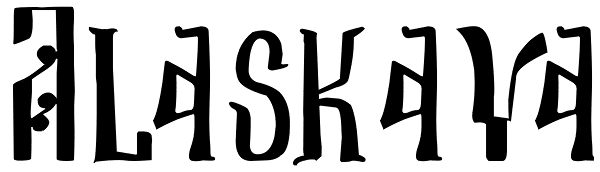
Alaskaya
Alaskaya is another result of many fruitless years of looking for satisfactory fonts based on Old Russian Iconography suitable for use with the Latin alphabet. The origins of the Alaskaya font are the lettering found on the iconography in St. Herman...